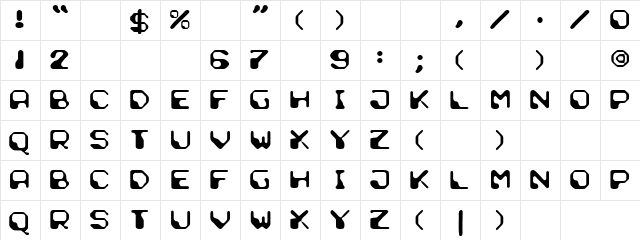
Sigma Wide Regular
Design Context for Sigma Wide Typeface
Sigma Wide is a composed and adaptable typeface that performs quietly and consistently across a wide range of design contexts.